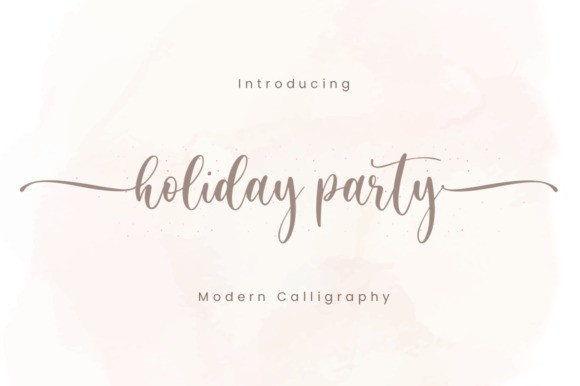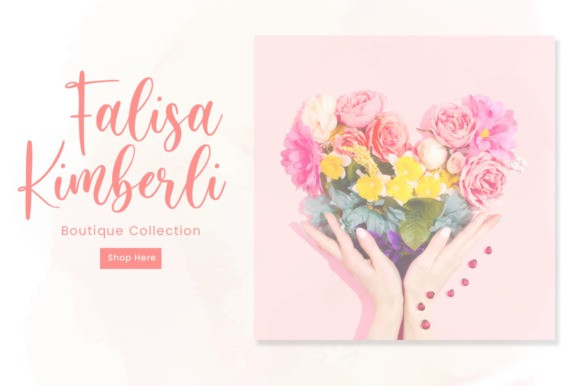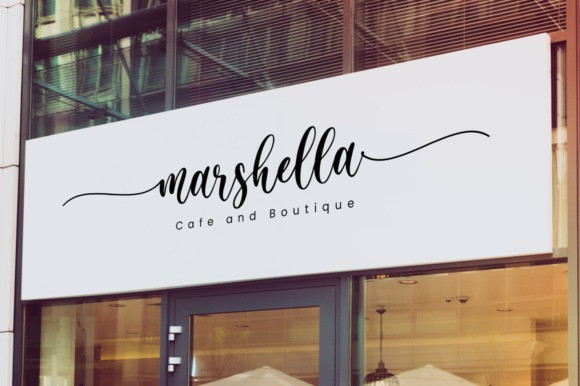
Hillary Bintang Script Font
Hillary Bintang is a ravishing and delicate calligraphy typeface with characters that dance along the baseline. It will add a luxury spark to any design project that you wish to create! This font is PUA encoded which means you can access all of the amazing glyphs and ligatures with ease!